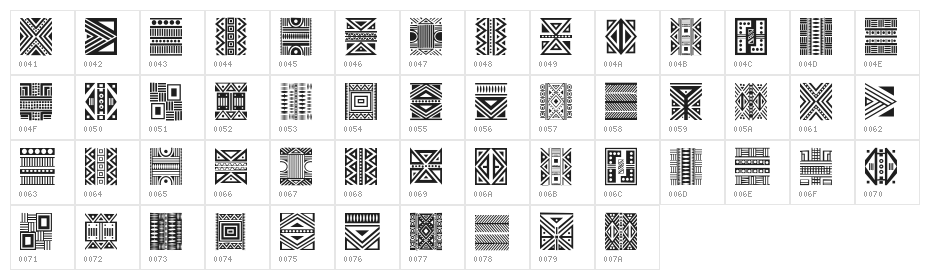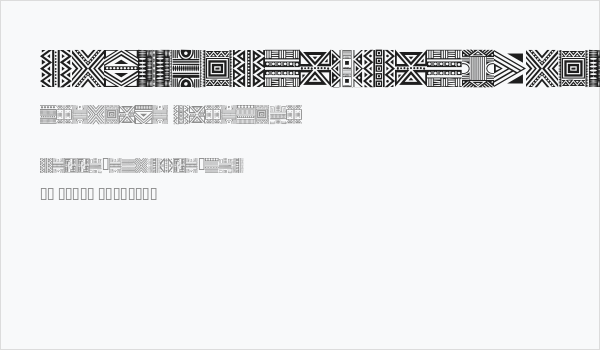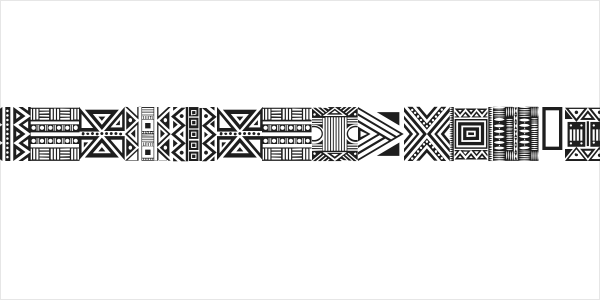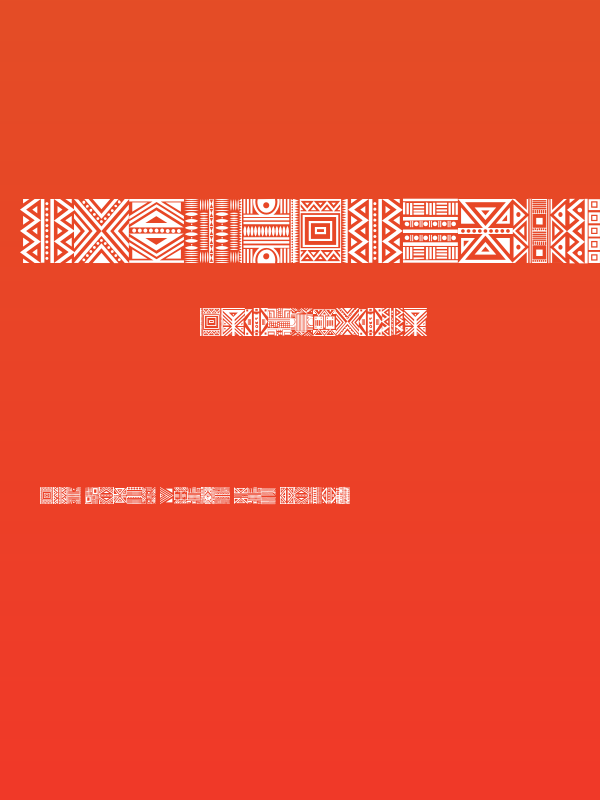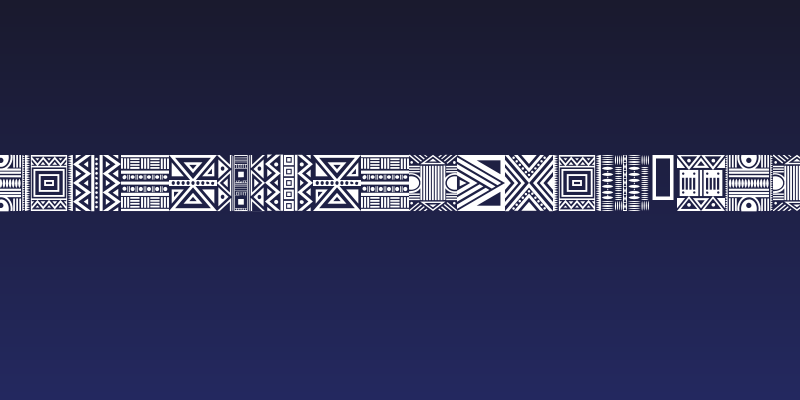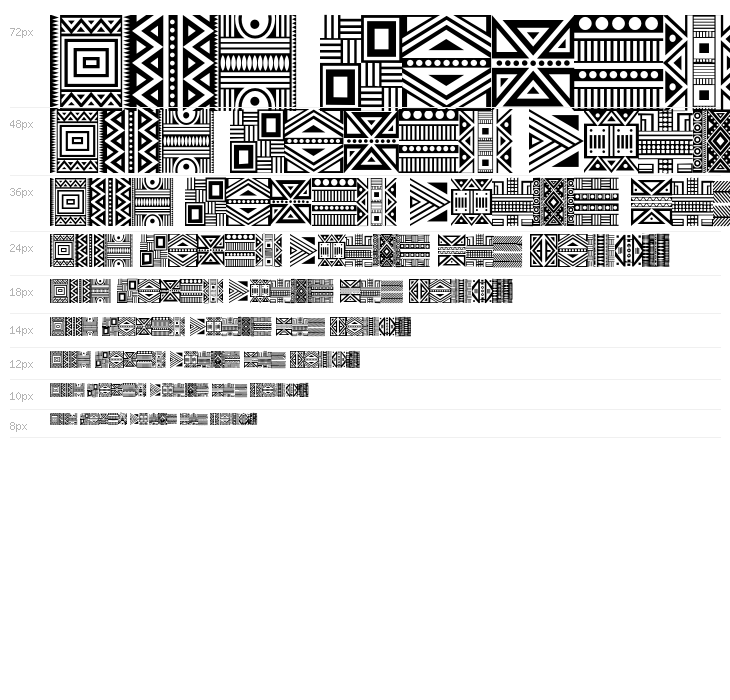
HausEthnikDingbats-Regular Font
HausEthnikDingbats-Regular Description
This font is a collection of intricate and geometric dingbat patterns, showcasing a variety of ethnic-inspired designs. Each character is a unique, detailed motif that combines lines, dots, and shapes to create a visually striking effect. The patterns are bold and symmetrical, often featuring repeating elements that give a sense of rhythm and movement. These designs are perfect for adding a decorative touch to projects that require a cultural or artistic flair. The overall appearance is both modern and traditional, blending contemporary design with classic ethnic motifs.
| Use Case | Logos, Decorative elements, Artistic designs |
| Proposed Projects | Ideal for cultural event posters, artistic designs, decorative borders, and creative branding projects. |